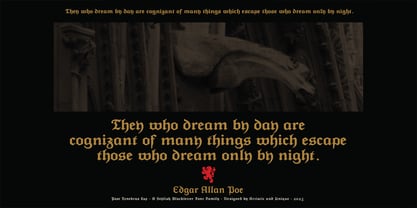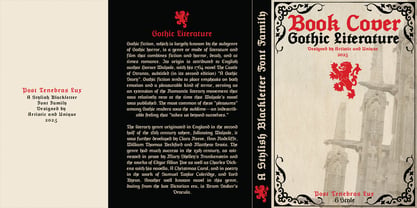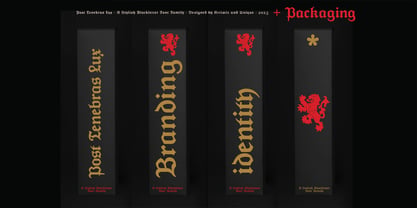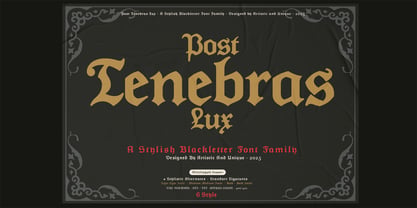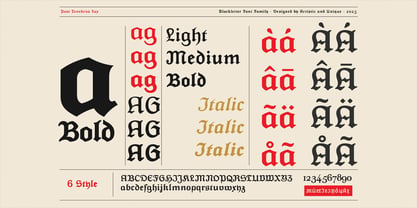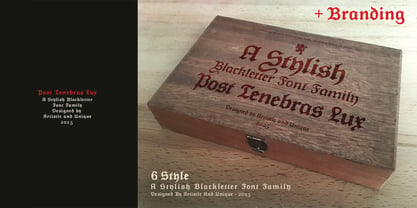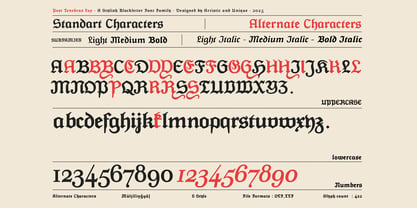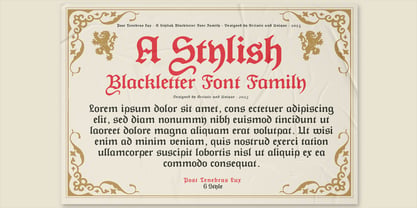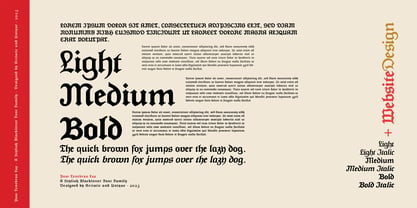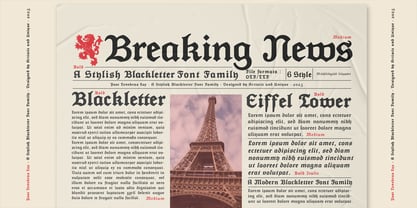
Post Tenebras Lux
A família de fontes Post Tenebras Lux foi desenhada por Osman Taner Kucukgenc e publicada pela Artisticandunique. Post Tenebras Lux contém 6 estilos e opções de pacote familiar. Saiba mais sobre esta família
Post Tenebras Lux - Blackletter font family - 6 Styles - Multilingual supports.
Today, the Blackletter font is primarily used for decorative purposes. It is seen in other graphic designs that aim to evoke a sense of tradition, elegance or rebellion. The font is also used in calligraphy and typography due to its artistic and aesthetic appeal.
Blackletter is best used for headlines, logos, posters and signs. If you have received a certificate, diploma or degree, there is a good chance that some or all of the text is written in Blackletter. Other familiar images include some well-established newspaper nameplates, where the font can be though of as adding seriousness to the publication. More recently, it has become associated with alcoholic beverage labels, Heavy metal bands, gangster rap and the film industry.
It has been modernized by taking inspiration from blackletter, which was used in Western Europe from about 1150 to the 17th century, and its sub from Fraktur, which was the most widely used in the Germanic region of Europe.
This font has a rich content with its multilingual and alternate characters. This rich content will provide an advantage in creating alternatives in your different projects.
Especially for certificate, diploma, magazine, album covers, books, newspapers, posters, branding, logo design, titles, movie titles, etc.
With this font you can create your unique designs.